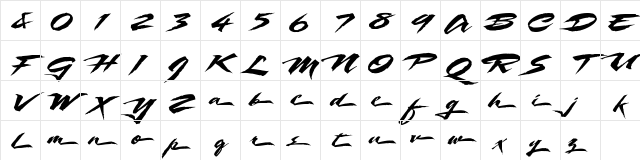
Complete A&S Xtreme Script swash Regular glyph index. Displaying only characters natively supported by A&S Xtreme Script swash Regular font.
A&S Xtreme Script swash flows with the natural rhythm of handwritten lettering, making it ideal for designs that call for warmth and personal expression.
Font Pairing: Combine A&S Xtreme Script swash with a simple geometric sans for maximum contrast - the tension between flowing curves and clean structure is a classic typographic pairing.
Pro Tip: Use A&S Xtreme Script swash for short runs of text - names, titles, or taglines. Extended body copy in script faces tires the eye quickly.